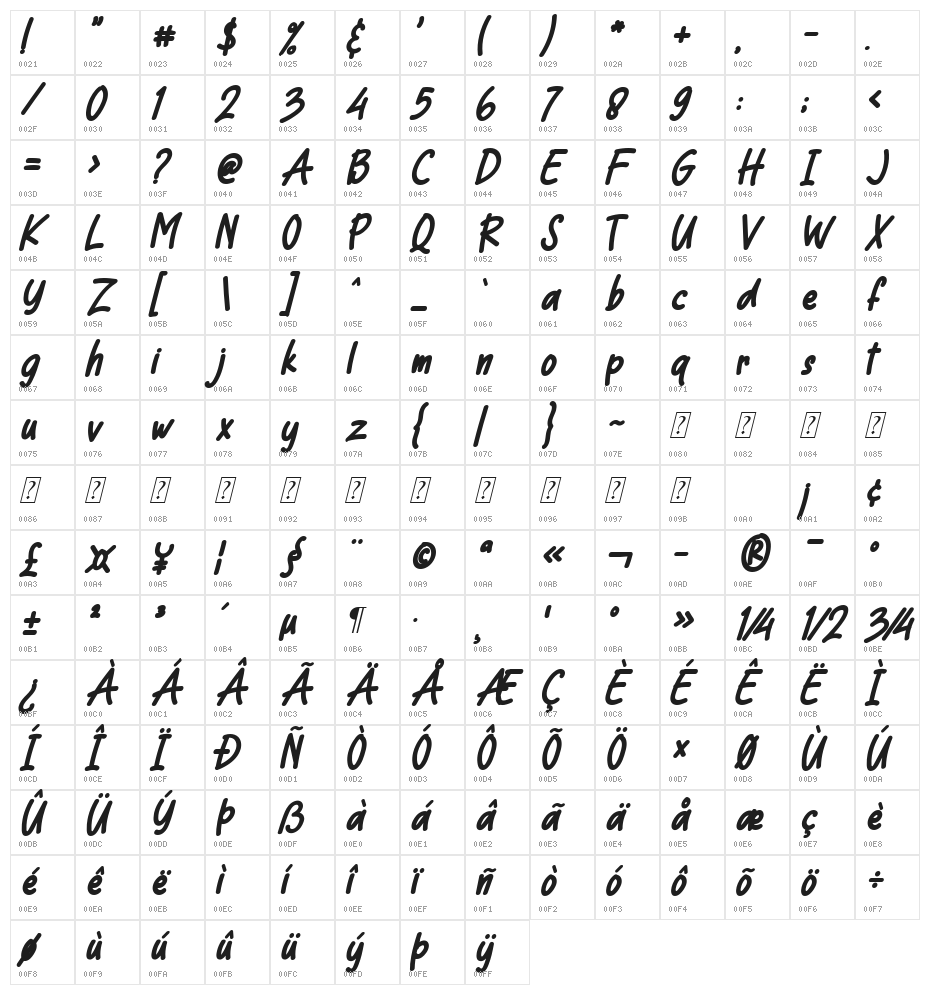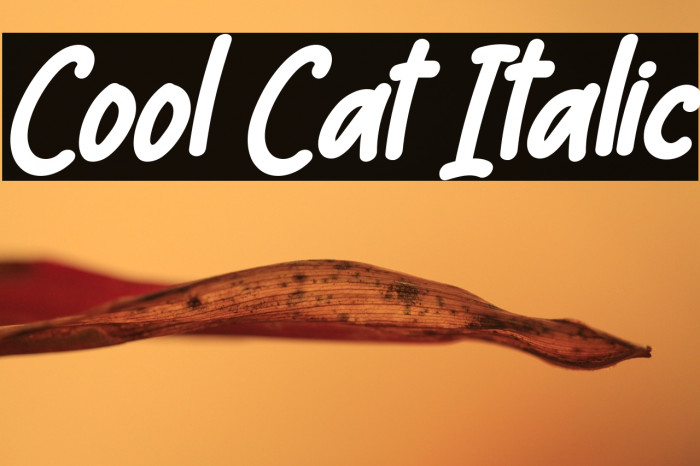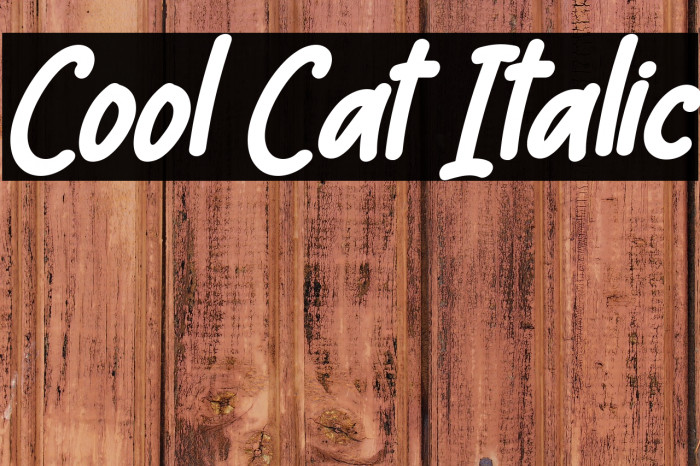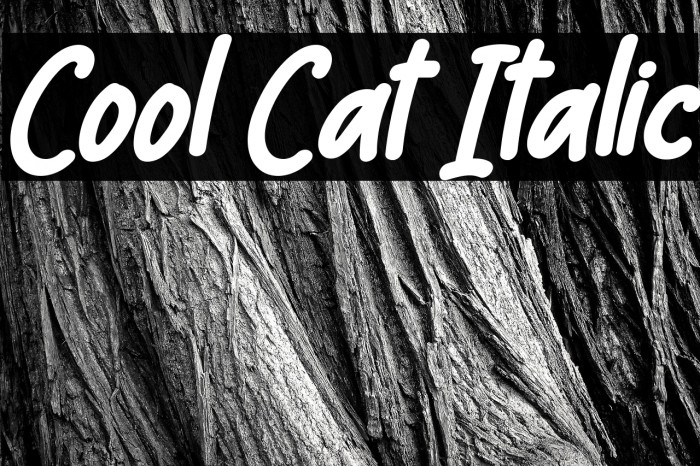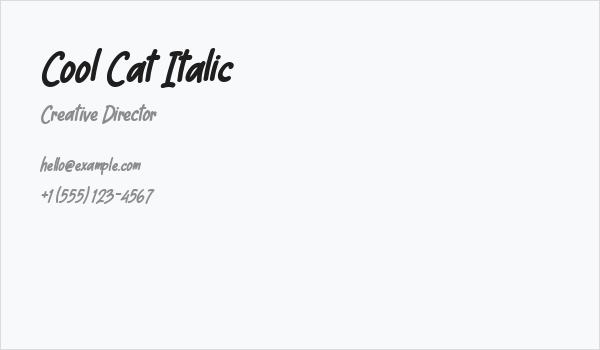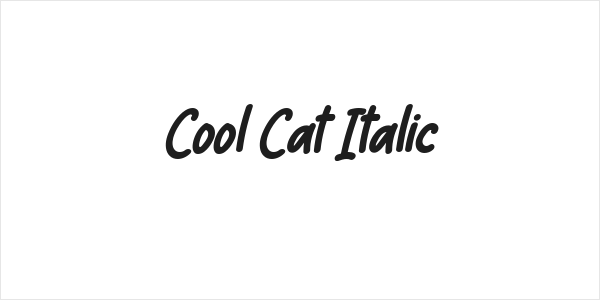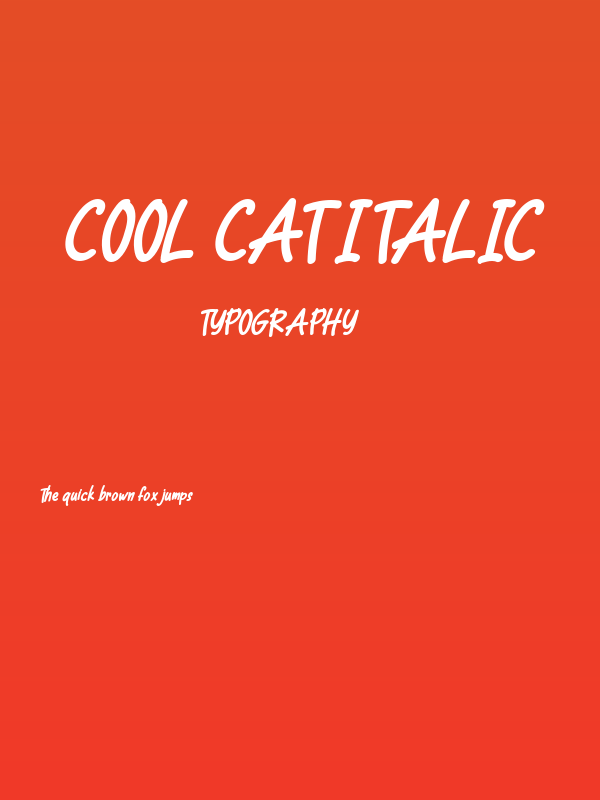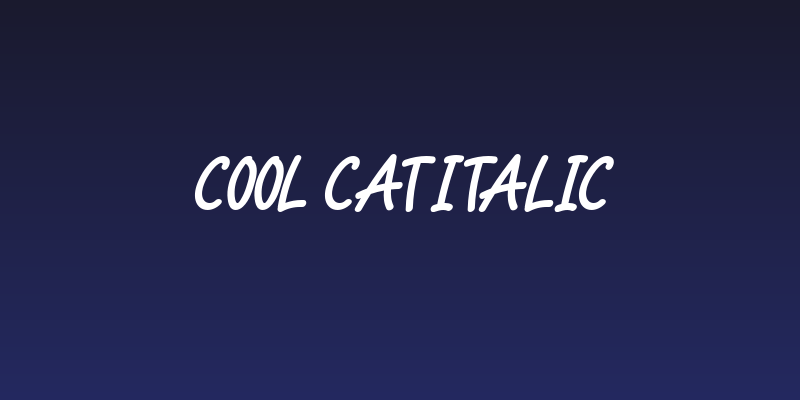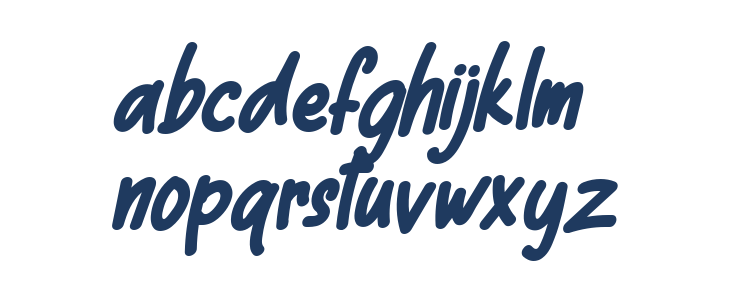
Cool Cat Italic Font
Cool Cat Italic Description
This font features a playful and dynamic style with a handwritten appearance. The letters are slightly slanted, giving an italicized effect that adds to its casual and informal vibe. The strokes are bold and consistent, providing a strong presence on the page. The characters are well-spaced, ensuring readability while maintaining a cohesive look. The font includes a full set of uppercase and lowercase letters, numbers, and a variety of special characters, making it versatile for various design needs.
| Proposed Projects | Ideal for creative projects such as posters, greeting cards, and social media graphics where a fun and informal look is desired. |